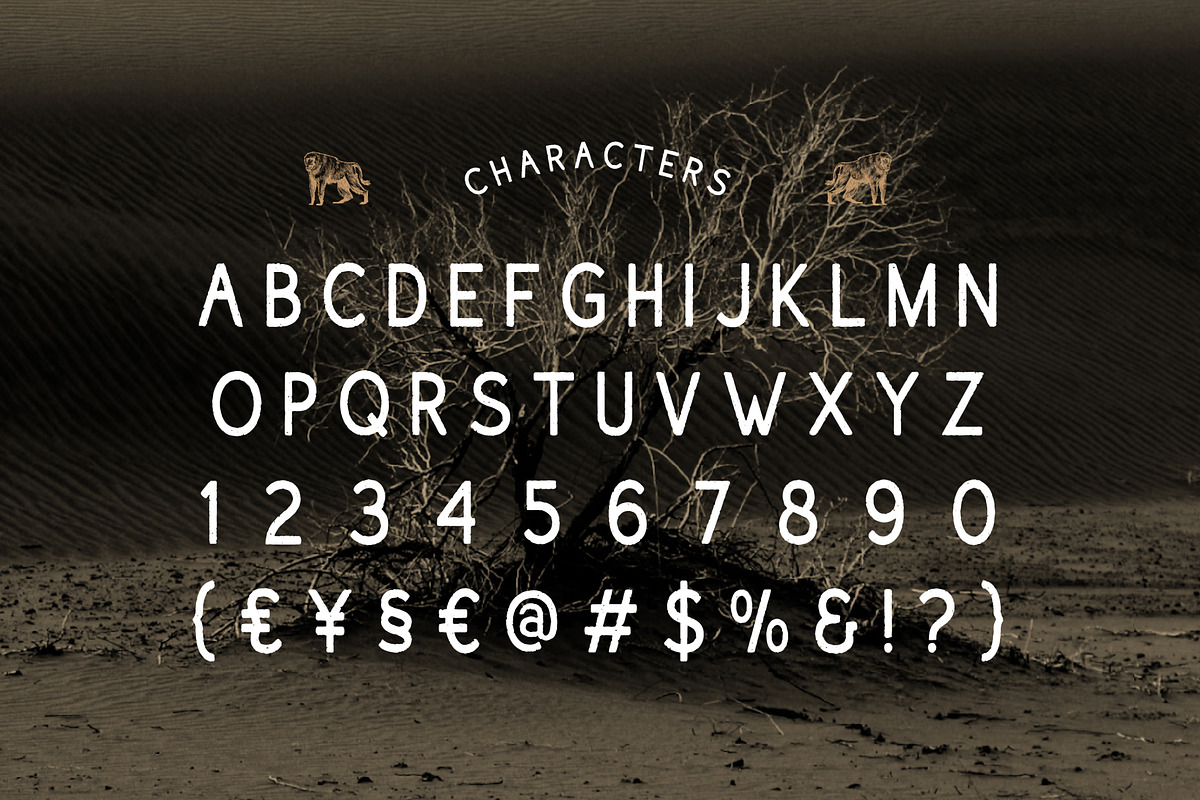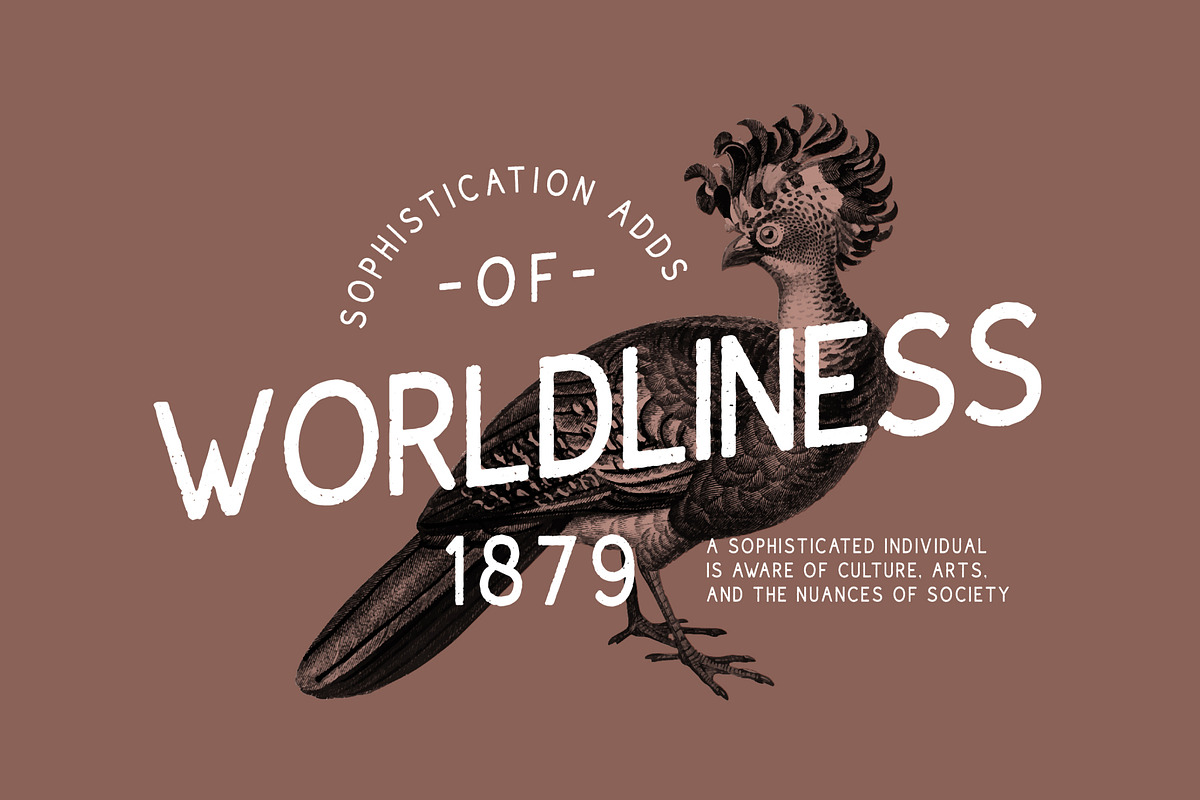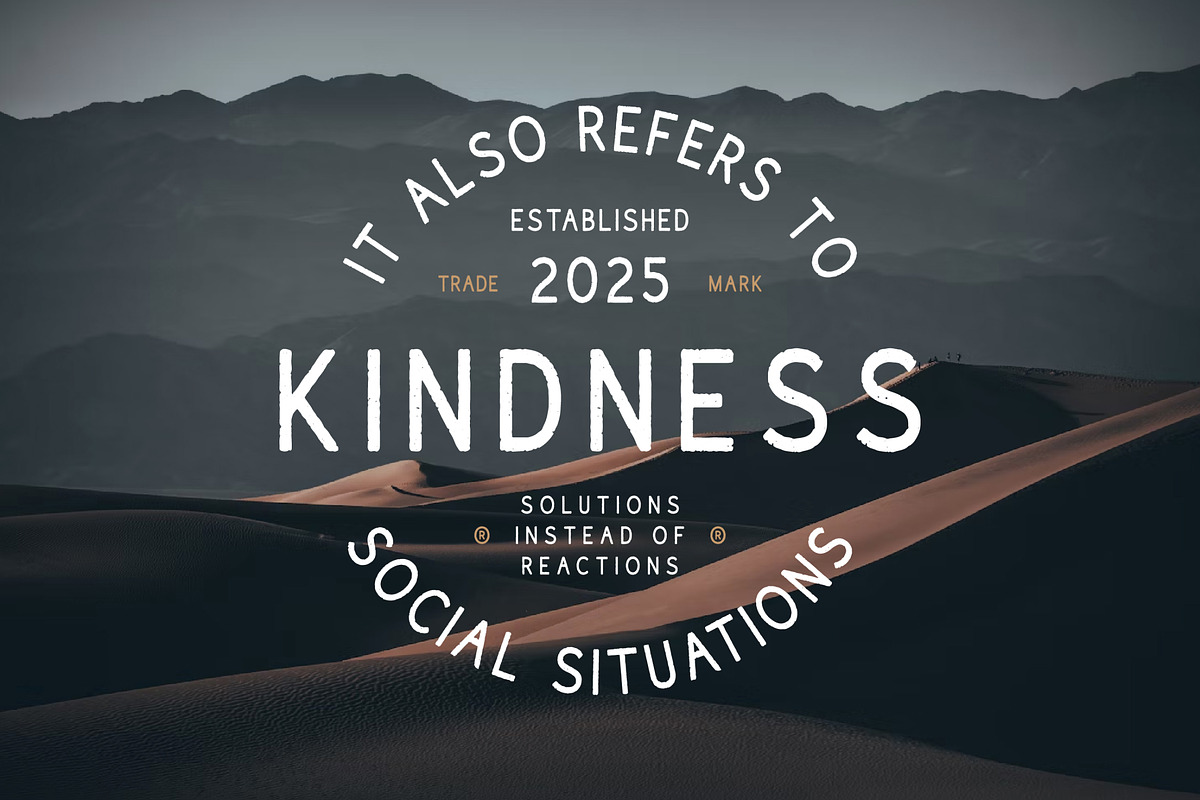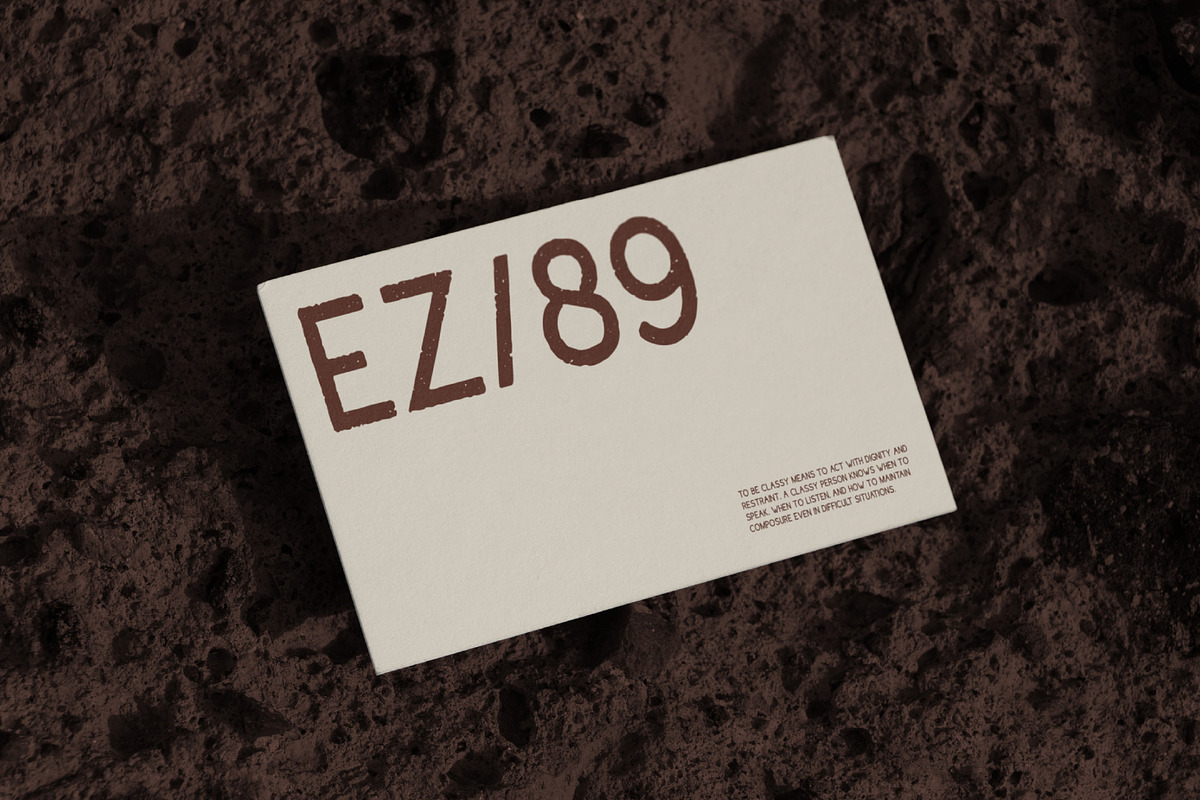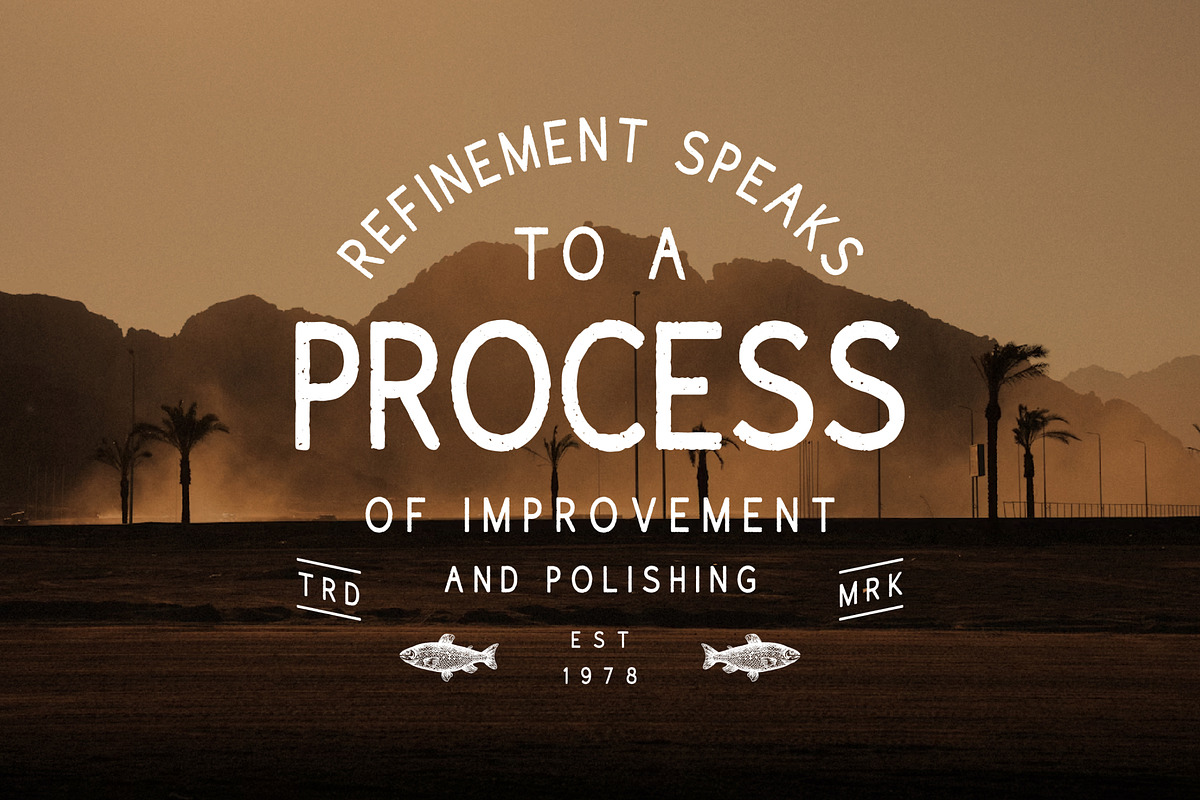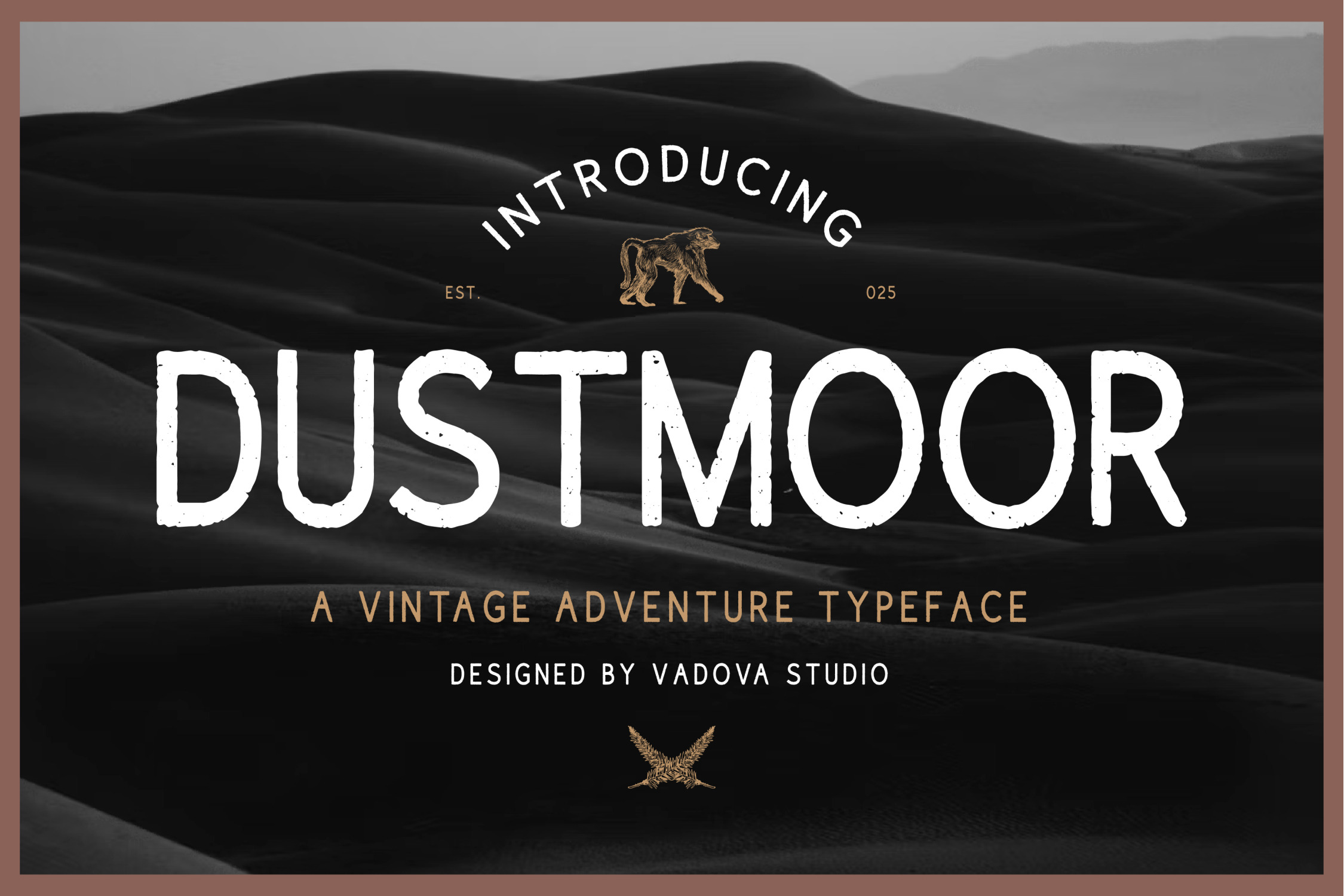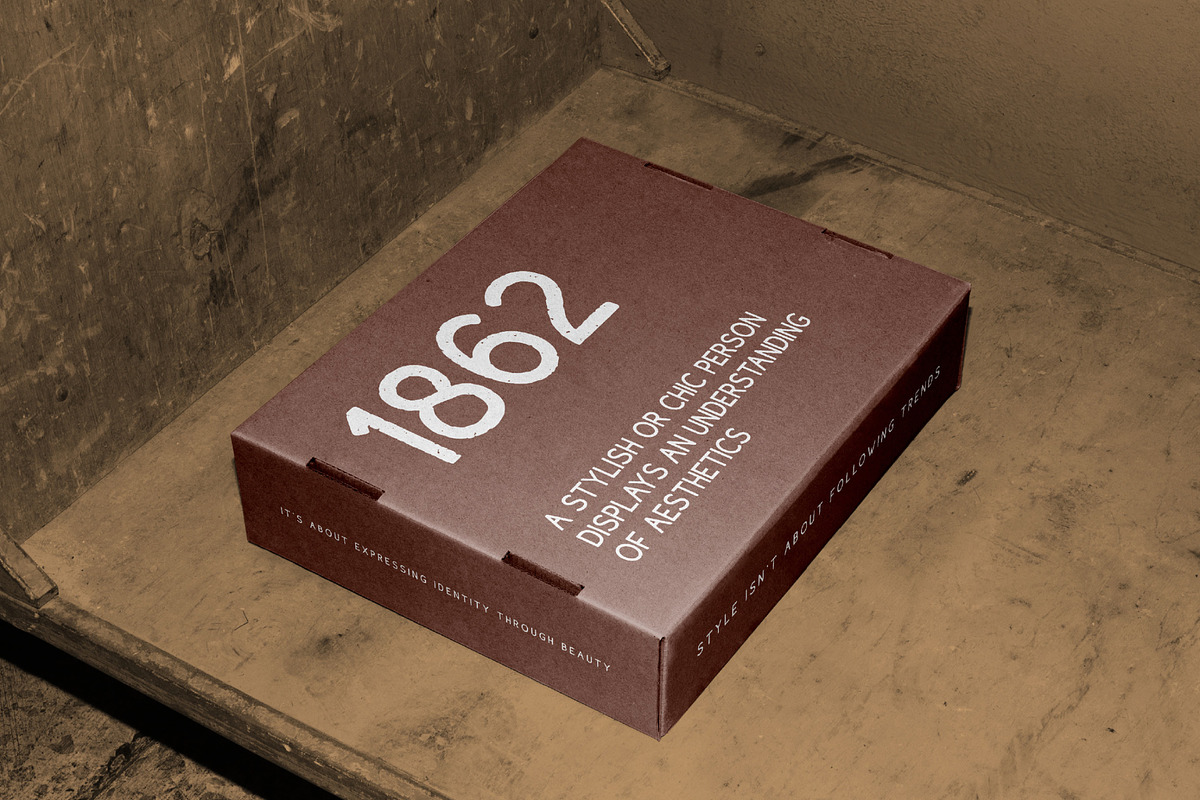
Dustmoor Vintage Adventure Font
Dustmoor is a rugged vintage typeface made for bold explorers, dreamers, and designers who crave authentic, weathered character in their work. Inspired by windswept deserts, ancient trails, and timeless wanderlust, Dustmoor captures the soul of adventure with every distressed stroke. It’s the ideal font for outdoor branding, rustic labels, retro packaging, and editorial spreads that seek a handcrafted edge. Combining tall letterforms with natural imperfections, Dustmoor delivers a look that’s both classic and gritty. Each glyph is slightly worn, giving your text a raw and lived-in quality like faded signage or well-traveled journals. Its all-caps structure enhances visual impact in headlines, while its clean rhythm keeps it legible across applications. Crafted for designers who appreciate texture and storytelling, Dustmoor thrives in projects where personality matters. Use it to brand sustainable goods, adventure experiences, apparel lines, artisanal soaps, or printed publications that embrace the outdoors.
- Distressed vintage look with naturally weathered strokes
- Tall all-caps letterforms built for visual impact and rustic presence
- Perfect for adventure branding, retro packaging, and handmade goods
- Includes uppercase, numerals, punctuation, and currency symbols
- Multilingual support for international use
- Optimized for print and digital projects
- Ideal for nature brands, travel products, coffee packaging, and more
- Handcrafted texture without compromising legibility
Relevance and Use Cases is perfect for branding coffee blends, vintage gear, handmade products, travel posters, or heritage-inspired media.